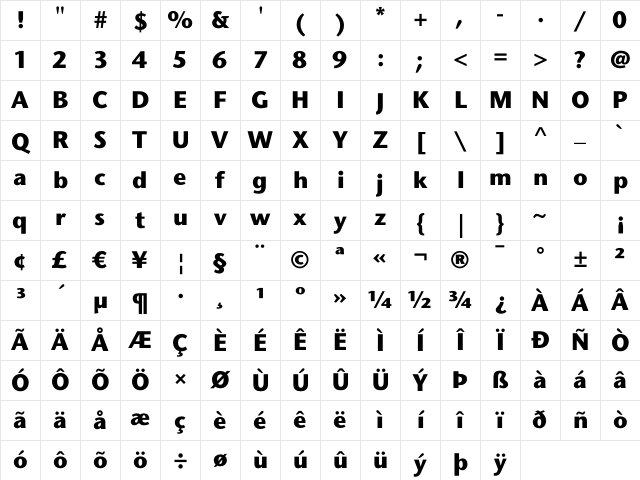
CaltexNovaSans Bold Free Font
CaltexNovaSans Bold
Complete CaltexNovaSans Bold glyph index. Displaying only characters natively supported by CaltexNovaSans Bold font.
Design Context for CaltexNovaSans
CaltexNovaSans is a composed and adaptable typeface that performs quietly and consistently across a wide range of design contexts. Its bold stroke weight gives it real presence on the page.